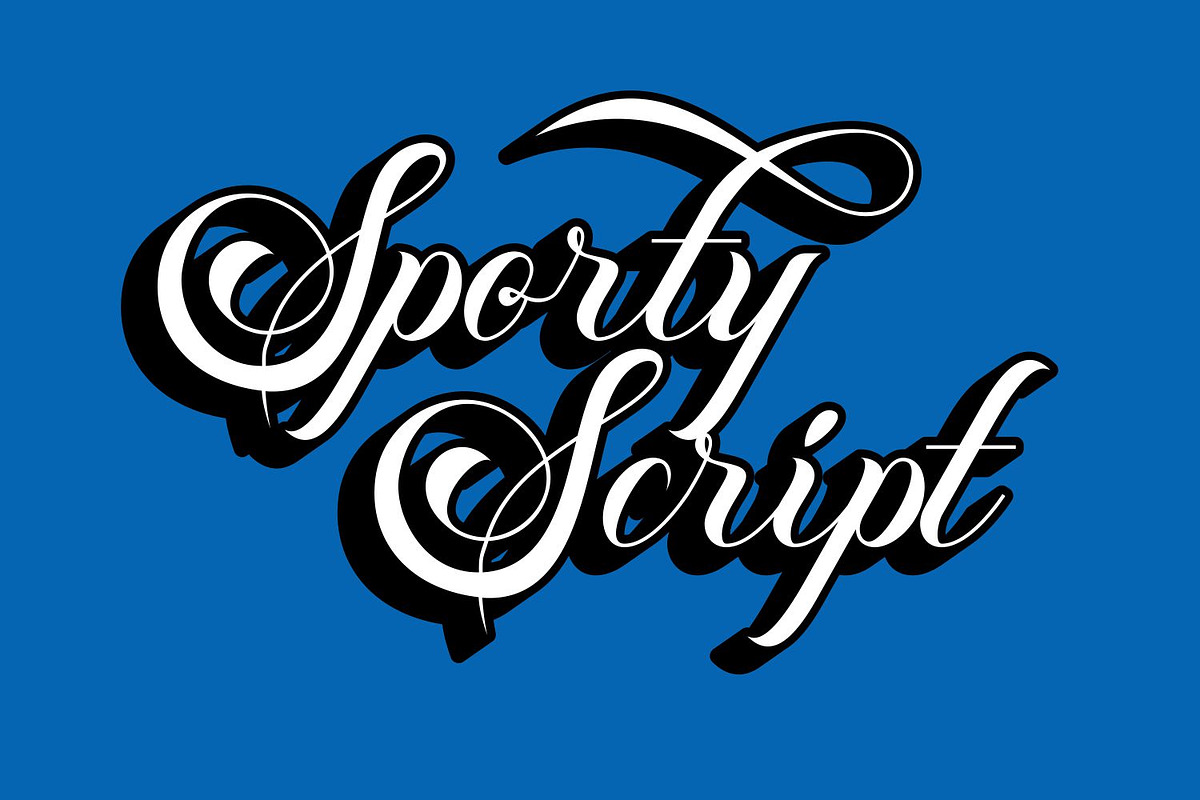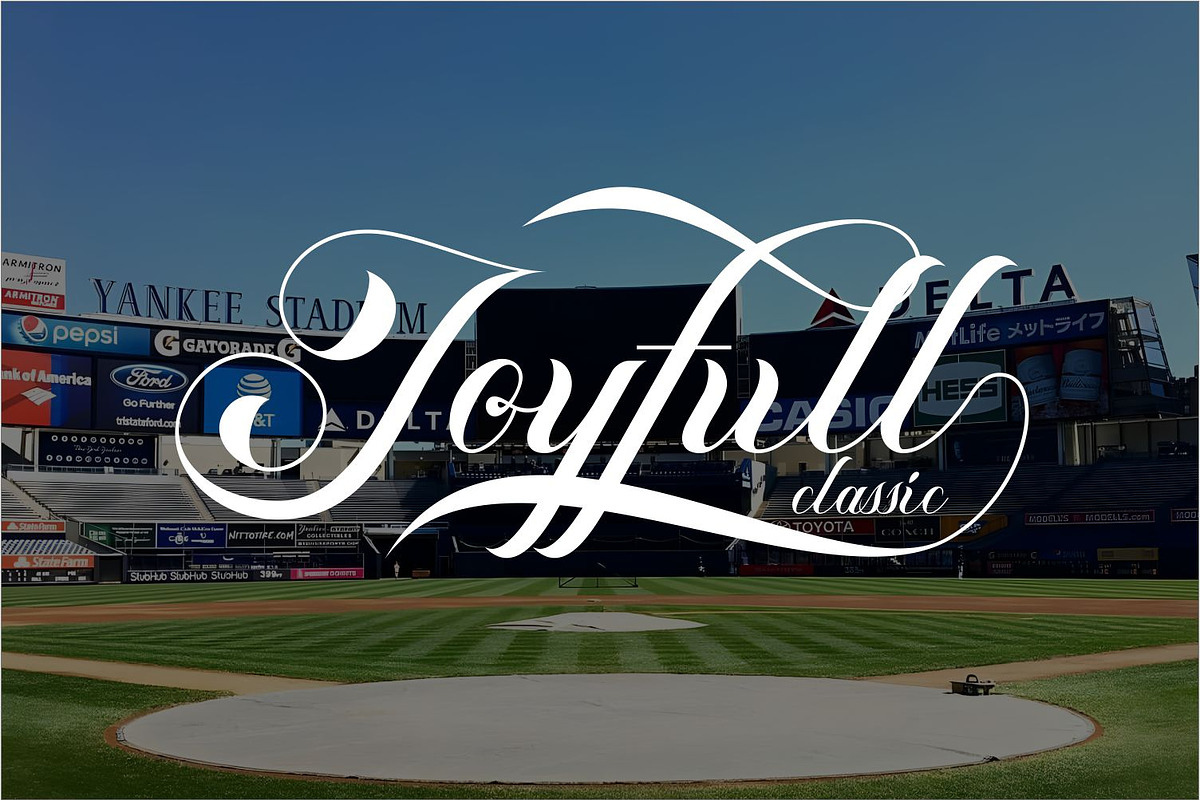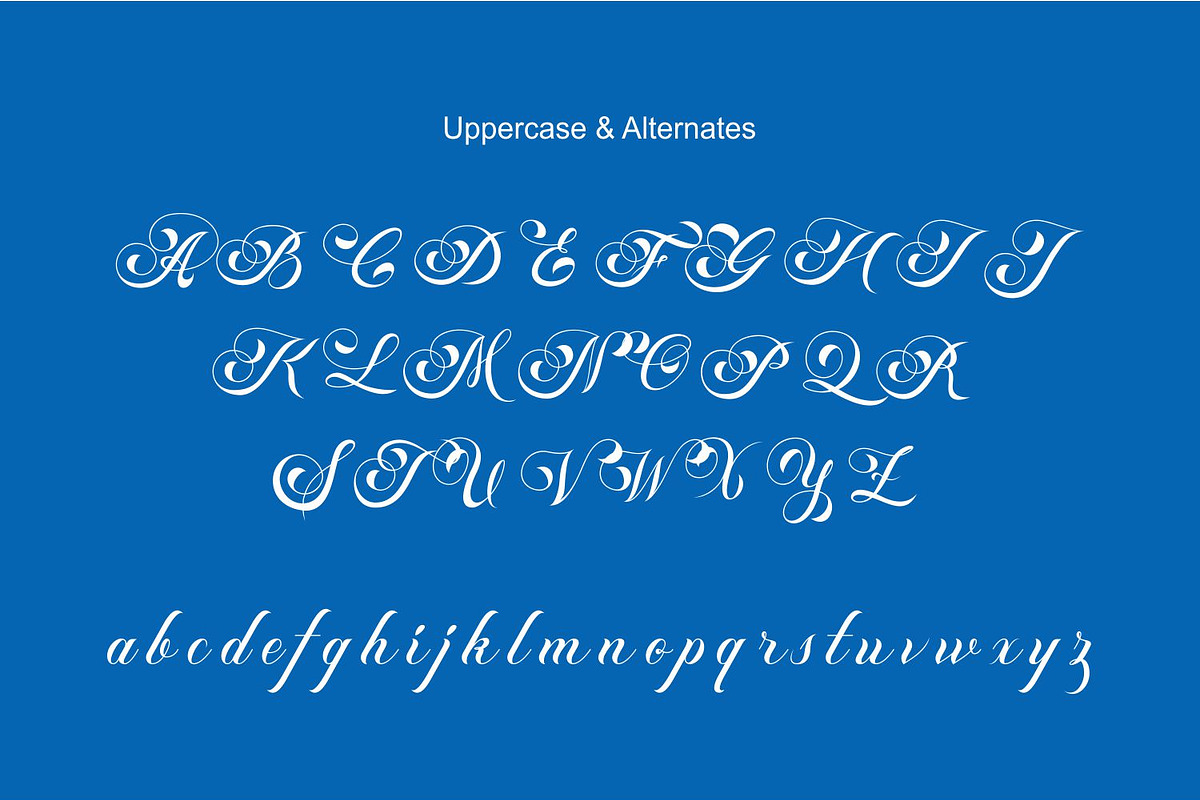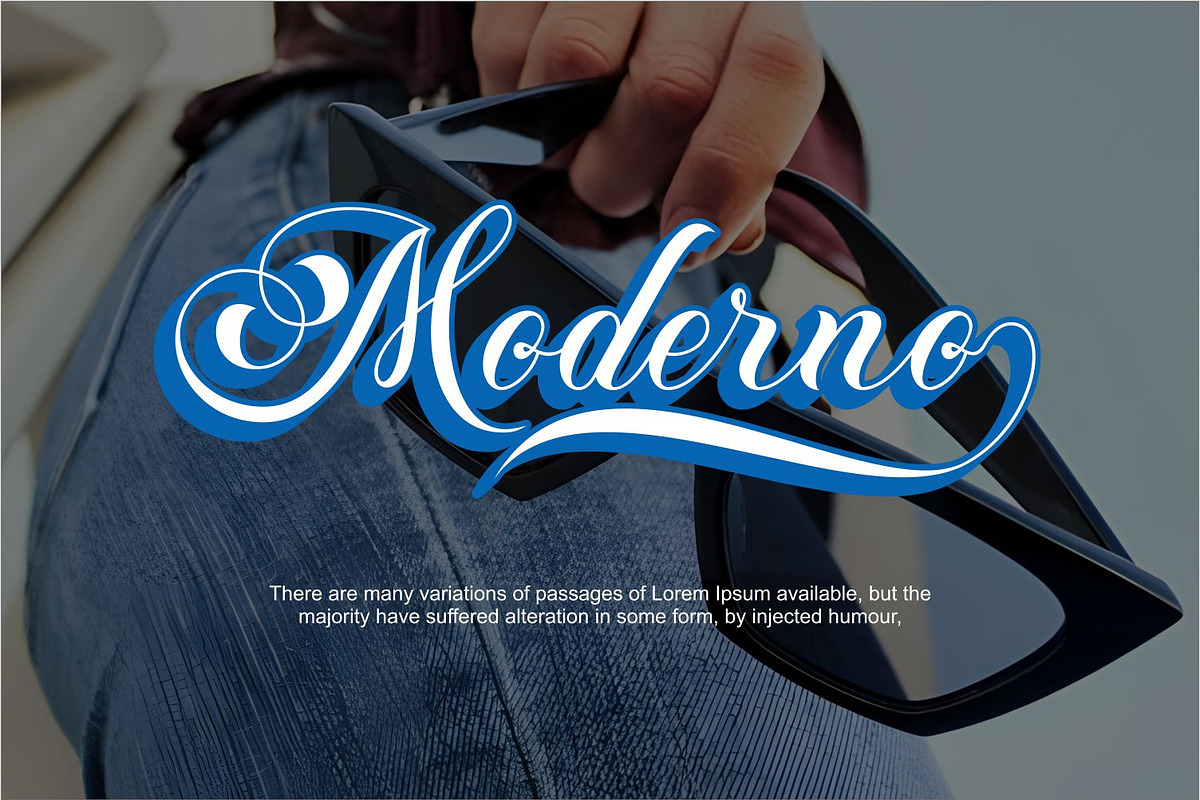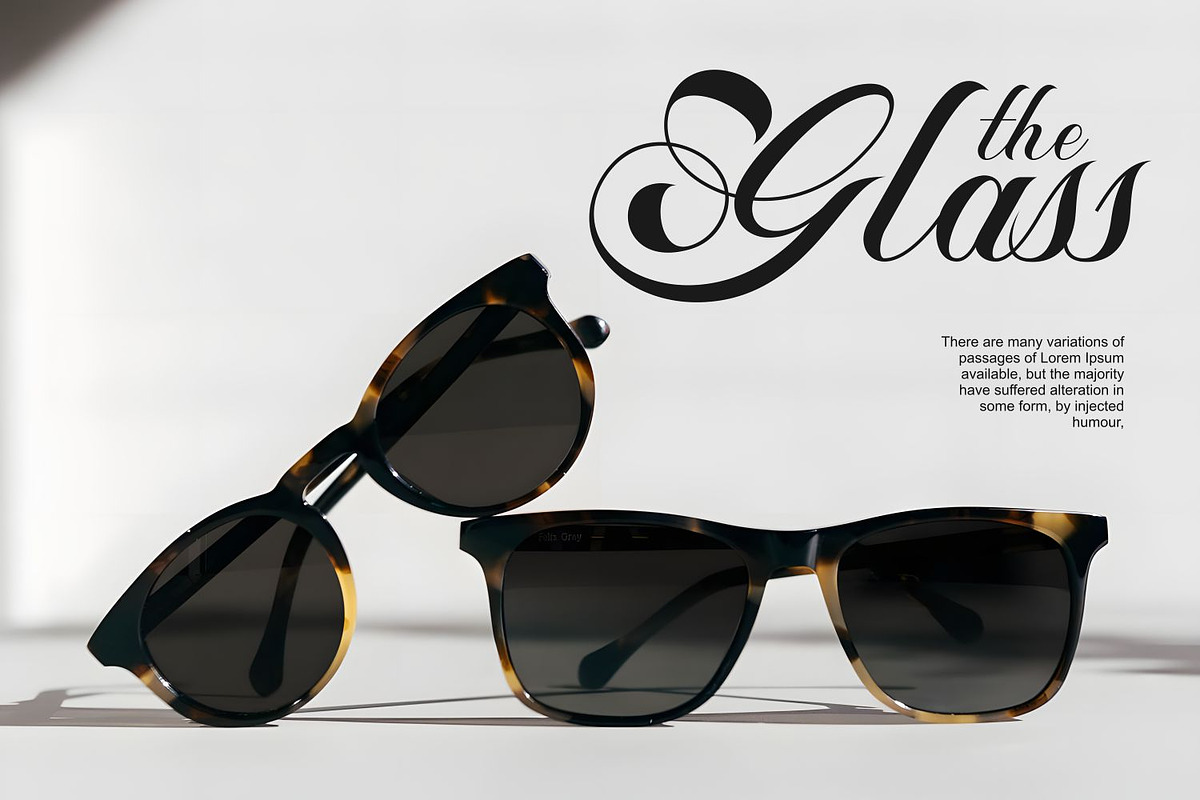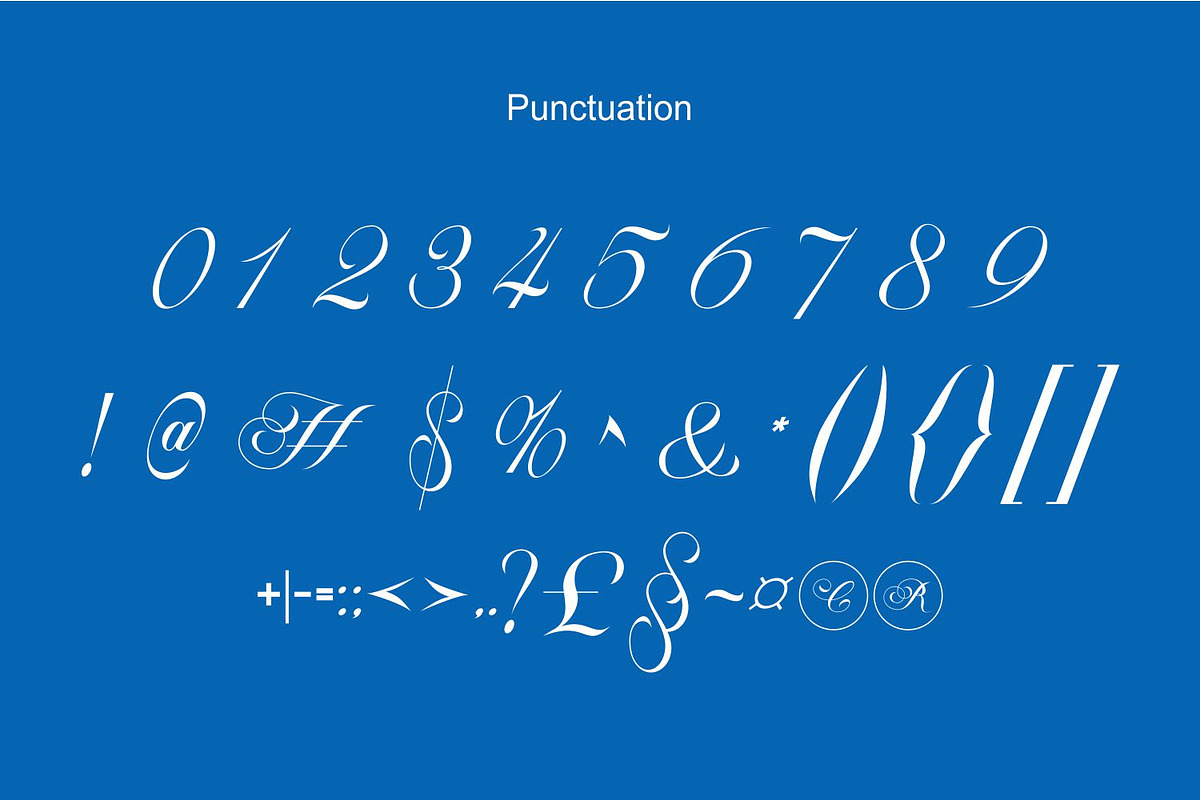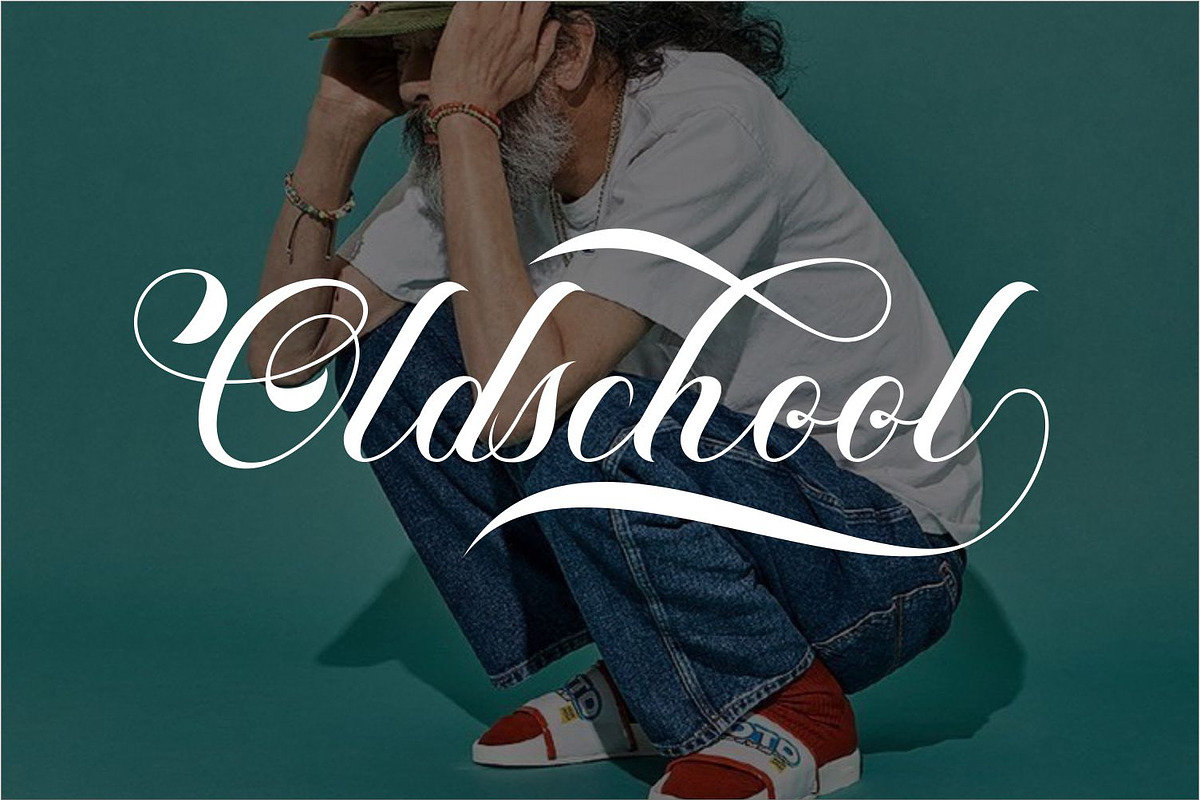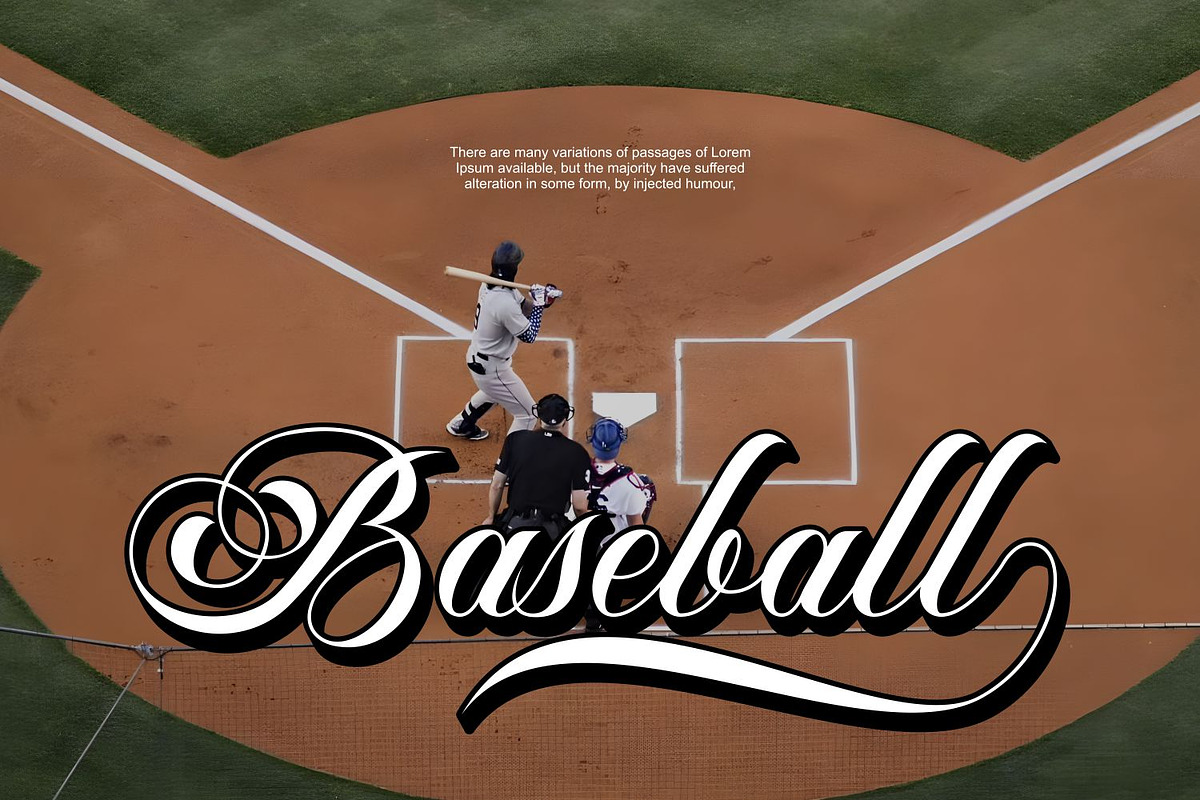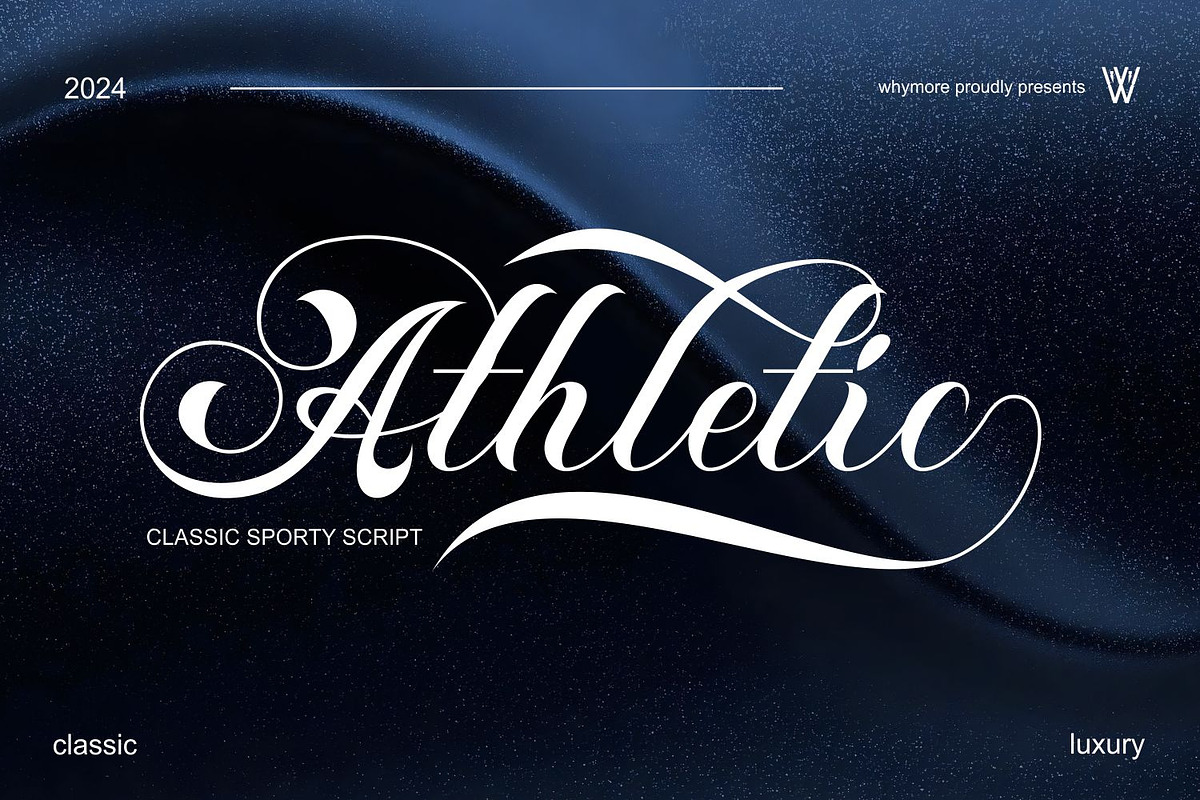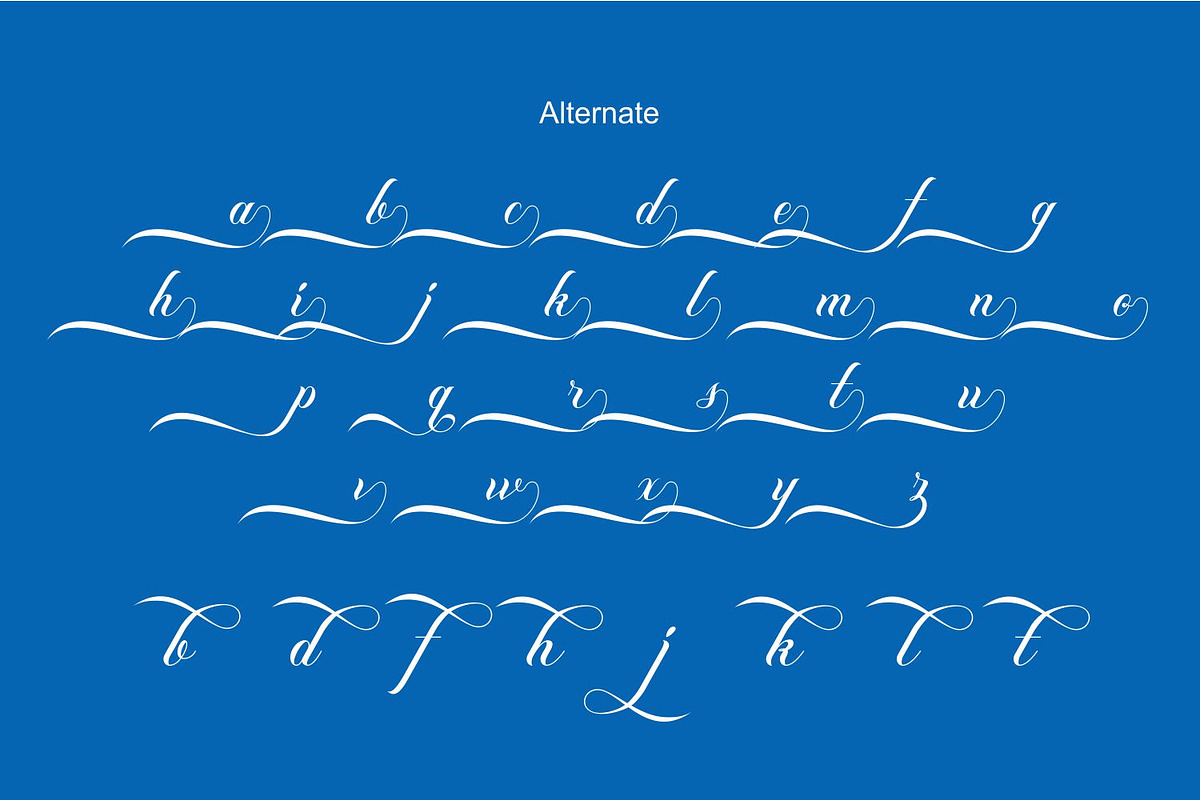
Athletic Sleek Round Sporty Baseball
Athletic Sleek is a modern script font with a dynamic, sporty and elegant style, specially designed for sports-themed design projects, branding and merchandise. With its rounded and smooth appearance, this font strikes the perfect balance between classic and contemporary aesthetics, making it an ideal choice for graphic designers and content creators looking to create energized and professional work.
Script design with a sporty and sleek touch Suitable for logo, branding, jersey, poster, and sports merchandise design Supports both print and digital projects with sharp, high-quality results Flexible file formats for various design applications
Additional Features: ✅ Multilingual Support ✅ Uppercase Alphabet A-Z ✅ Lowercase Alphabet a-z ✅ Alternate Characters ✅ Numbers 0-9 ✅ Selected Punctuation